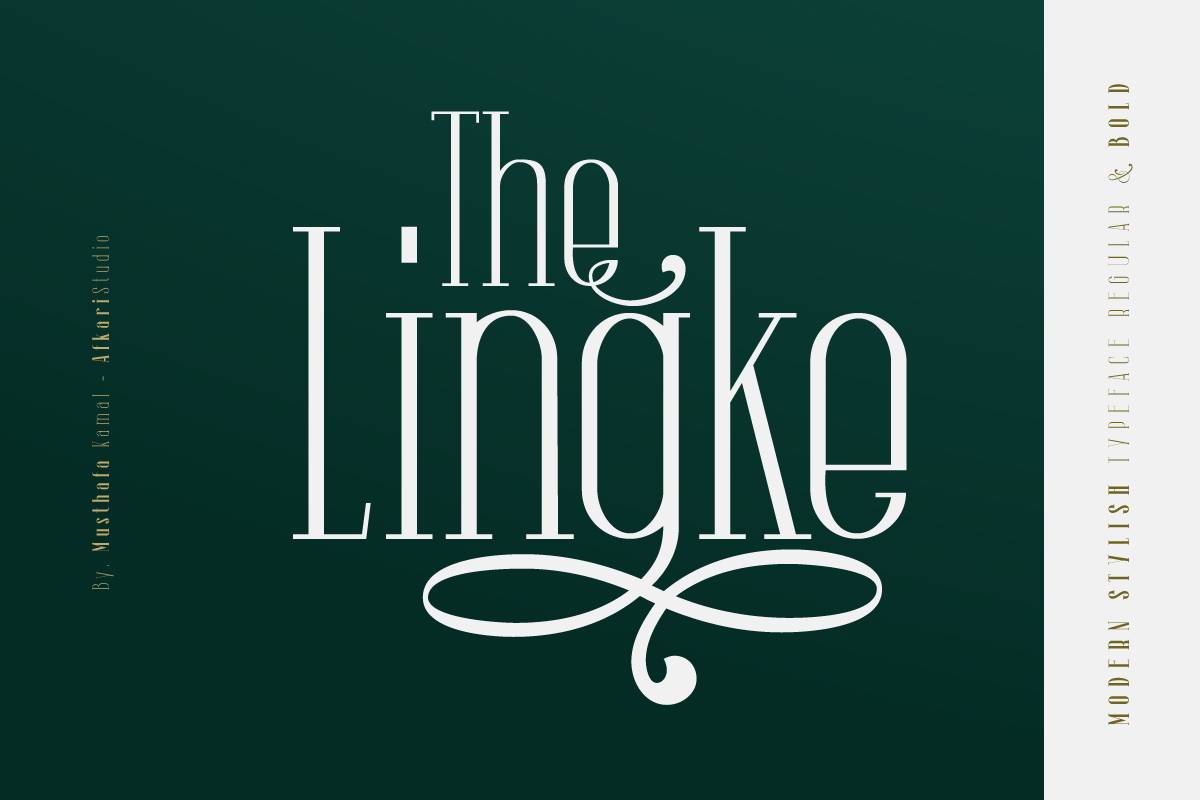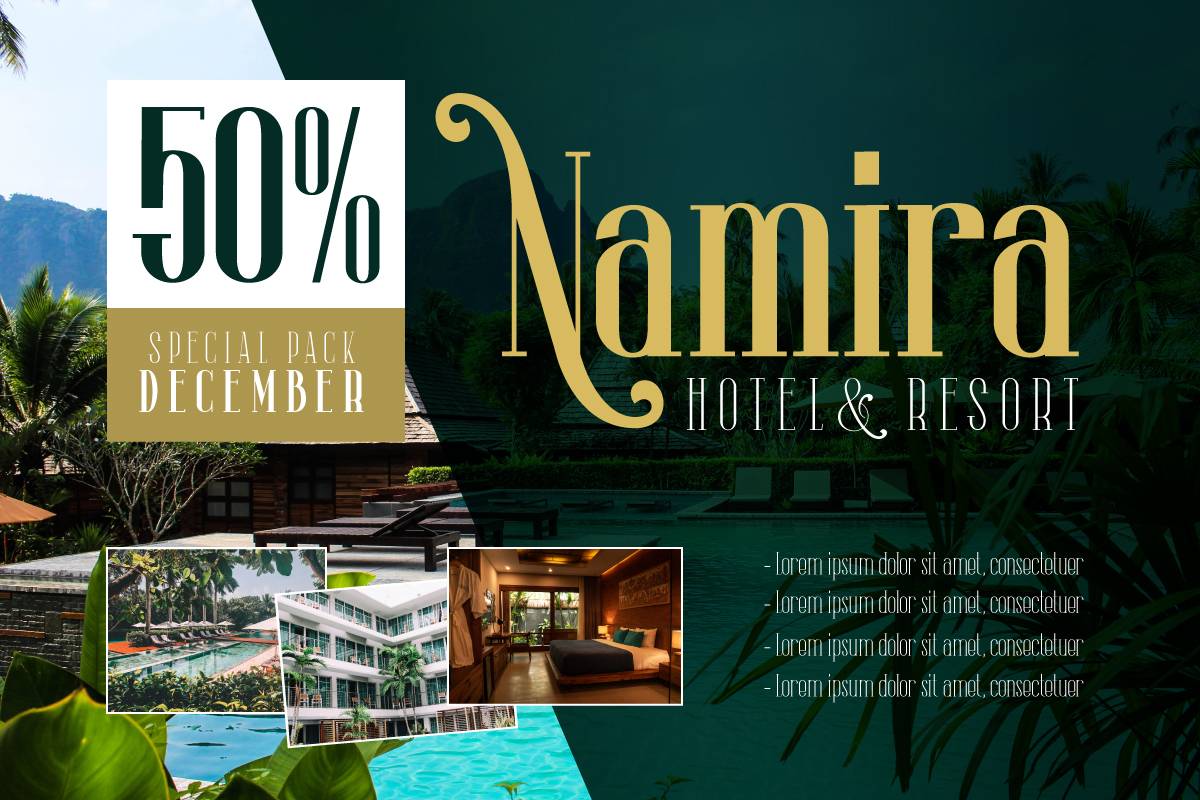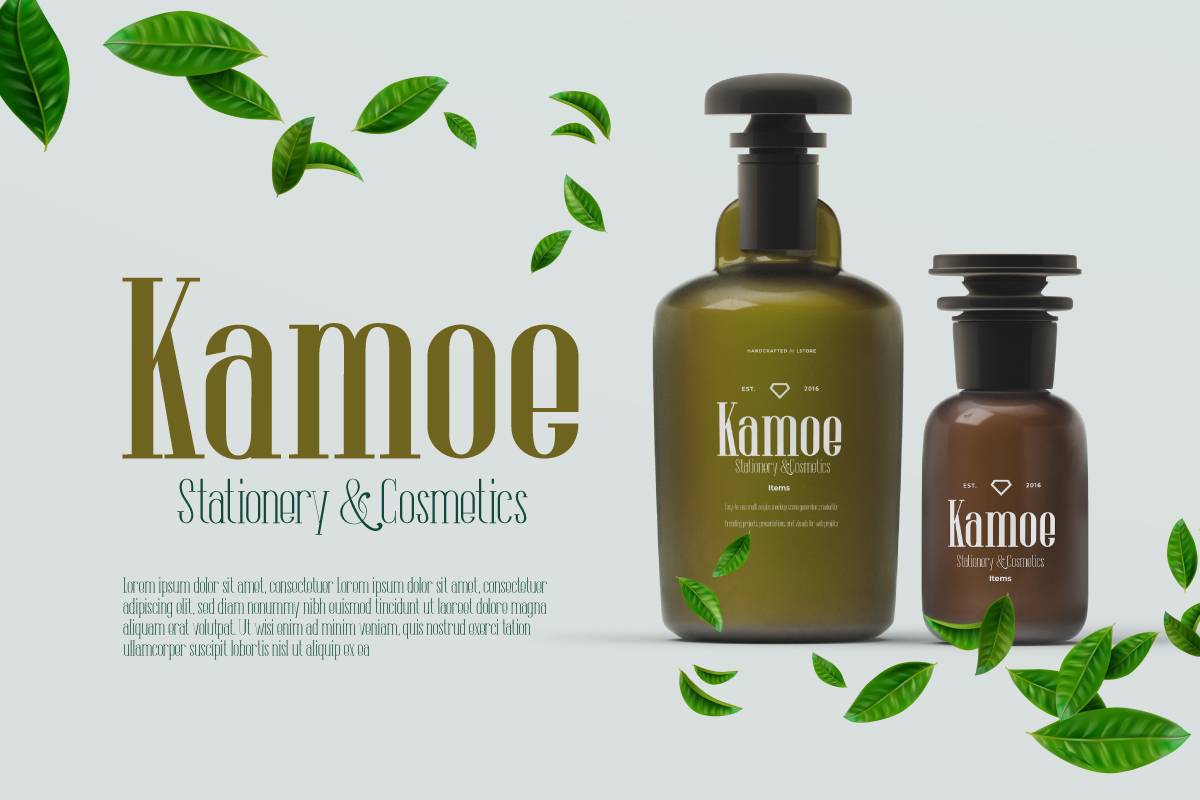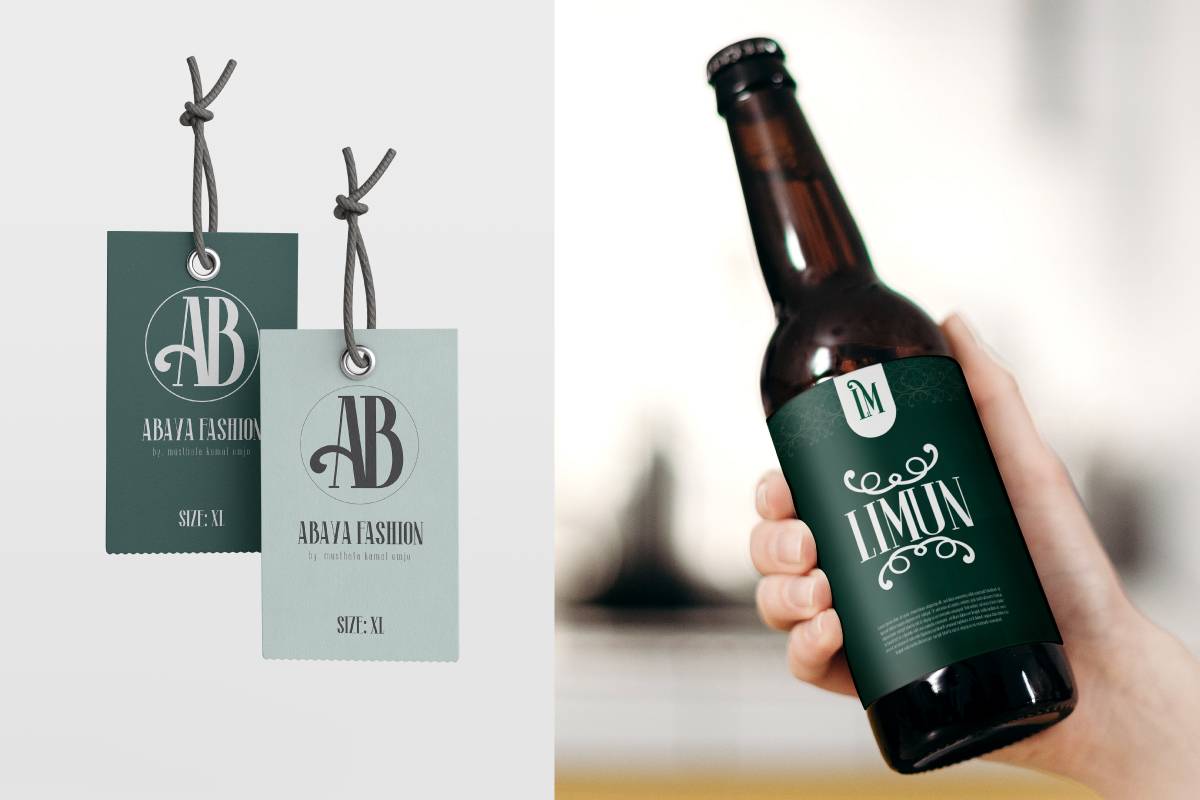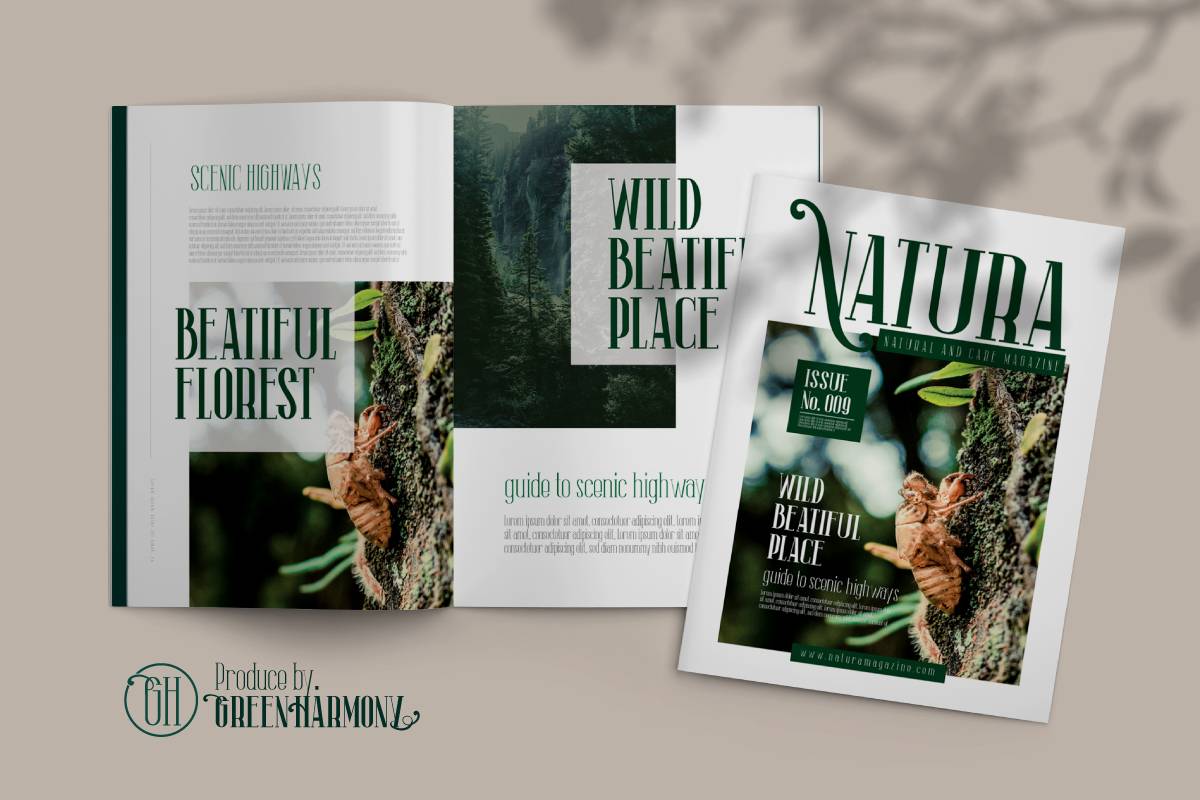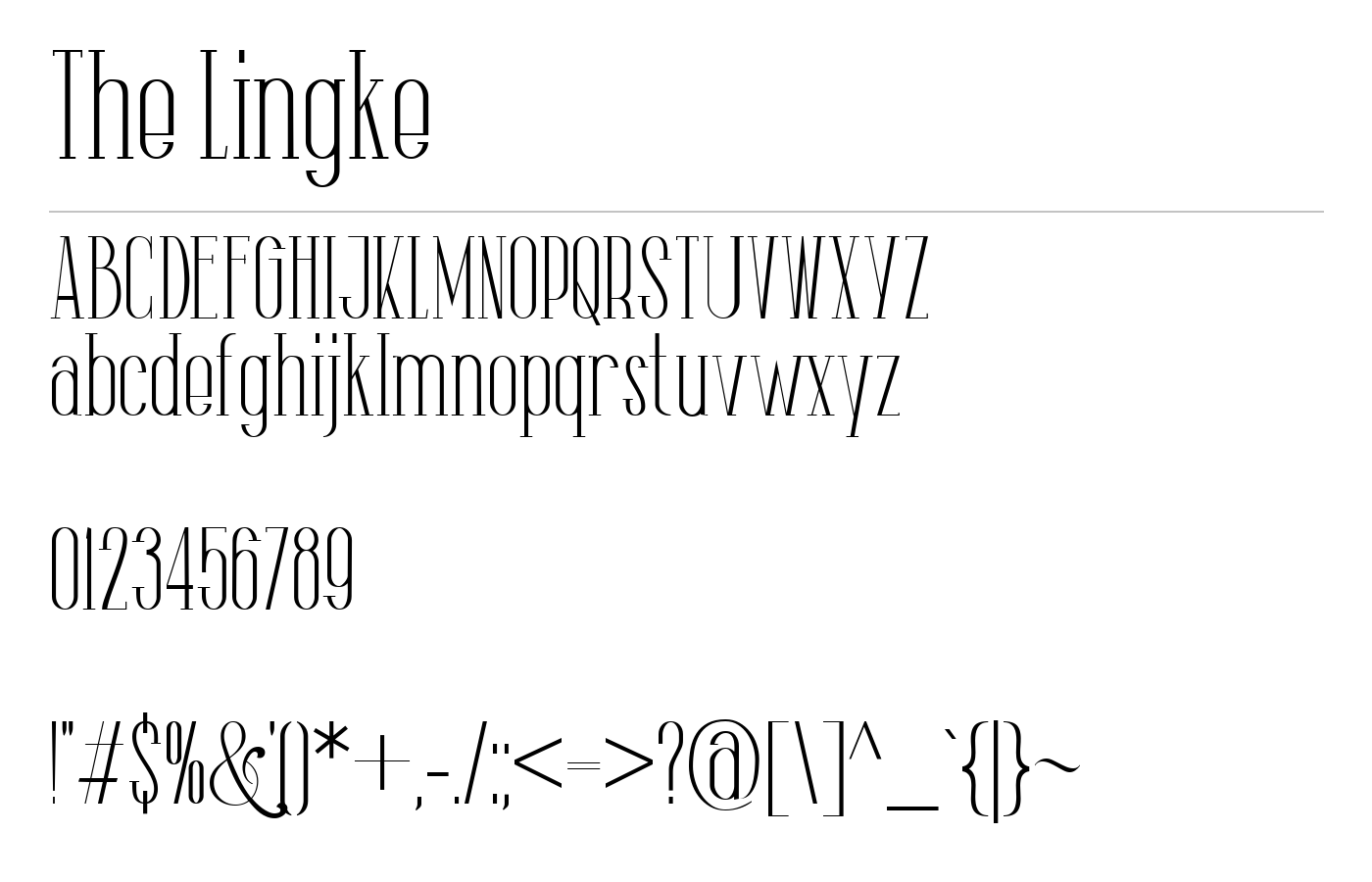
The Lingke Font is a finely crafted serif typeface with an elegant, ultra-condensed design that features a high contrast between thin and thick strokes. Its tall x-height and delicate, bracketed serifs give it a refined, sophisticated look, making it ideal for luxury branding, fashion magazines, and upscale editorial headlines where a modern yet classic feel is desired. This font’s slender letterforms and distinctive shapes create a striking presence, perfect for stylish logos and refined display text.
The Lingke Font
About The Lingke Font
| Designer | Musthafa Kamal Emje |